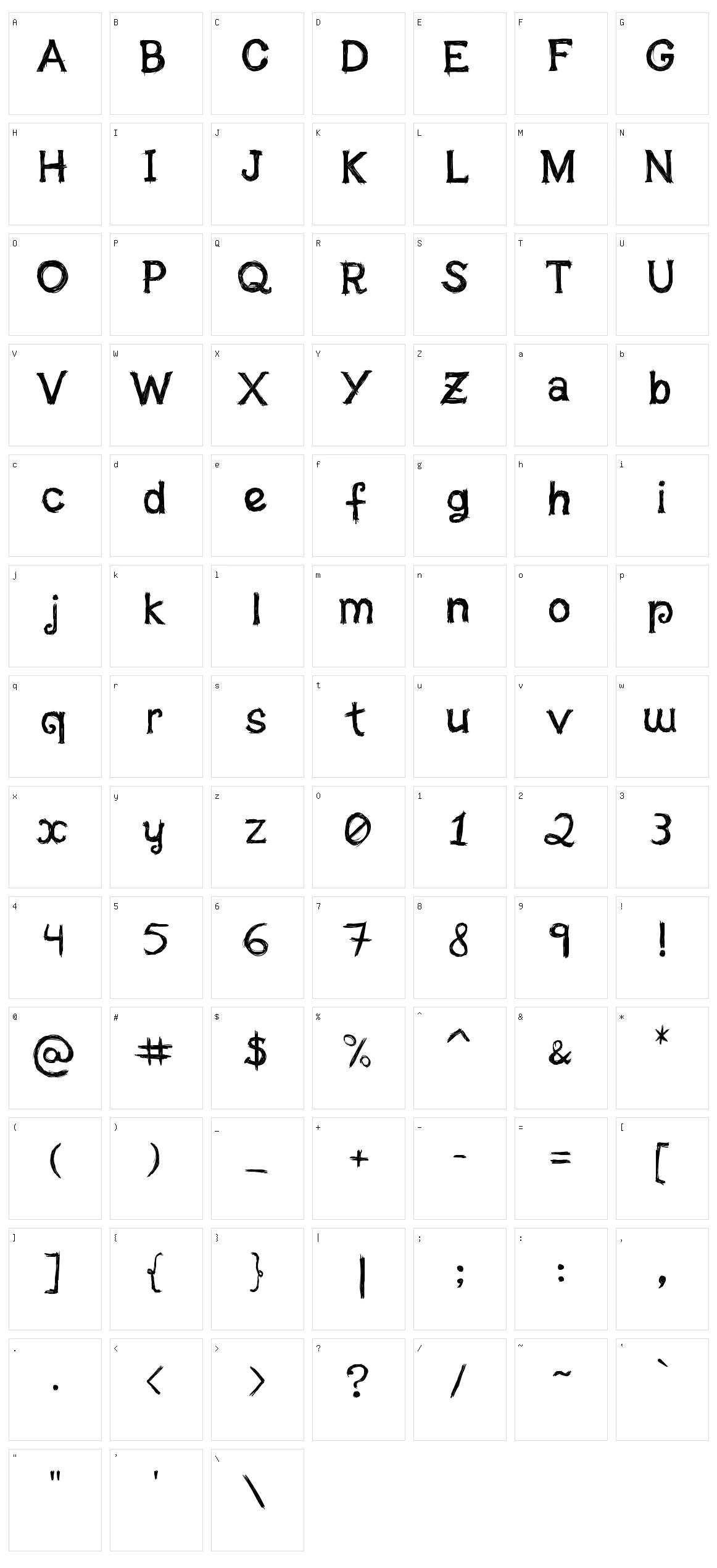
Feira da Fruta
The free font Feira da Fruta is carefully designed by Rafael Valério, showcasing a thoughtful balance of creativity and usability and falls under the Cartoon font style. When you download the ZIP file, it contains only 186.17 KB of font files, making it lightweight and quick to download. Please review the license details below to understand permitted usage and distribution rights. If license information is not available, we recommend using this font for personal projects only or contacting the author directly for commercial usage permissions.